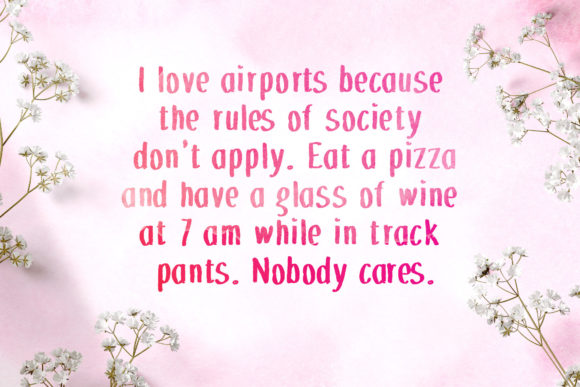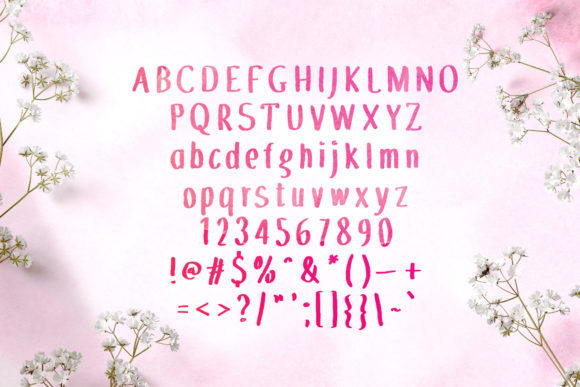
Introduction to Joyfontino Font
As a designer, have you ever found yourself staring at a blank canvas, waiting for inspiration to strike? For many of us, the perfect font can be the spark that sets our creative project ablaze. That’s where the Joyfontino Font comes in – a clean and natural handwritten font that has the power to elevate any design to new heights.
Whether you’re working on a free download for a client or a high-quality design for a commercial project, Joyfontino Font is a valuable resource that’s sure to impress. With its transparent background and organic feel, this font is perfect for designers who want to add a touch of personality to their work. And the best part? It’s a game-changer for any creative project, big or small.
So, what makes Joyfontino Font so special? In this article, we’ll dive into the world of this amazing font and explore its features, benefits, and how you can use it to take your designs to the next level.
Key Features of Joyfontino Font
- High-quality design resource perfect for creative projects, available for free download with transparent background.
- Unique, hand-drawn style with intricate details and flourishes, making it ideal for adding a touch of elegance to your designs.
- Includes a wide range of characters, including uppercase and lowercase letters, numbers, and punctuation marks, making it a versatile design resource.
- Perfect for use in various design projects, including logos, graphics, typography, and more.
Honest Review: Joyfontino Font
As a designer, I’m always on the lookout for high-quality design resources to elevate my creative projects. The Joyfontino Font caught my attention with its unique blend of elegance and playfulness, making it a great addition to my design arsenal.
Here are some things that work well with the Joyfontino Font:
- ✨ High-quality design: The font is well-crafted, with smooth lines and a cohesive aesthetic that makes it perfect for a variety of design projects.
- ✨ Versatile: Joyfontino Font is suitable for both digital and print designs, from brochures to website headers.
However, I do have some reservations:
- ⚠️ Limited character set: The font only includes a basic set of characters, which may be a limitation for designers who need to use special characters or languages.
- ⚠️ Transparent background: While the font itself is great, the transparent background can sometimes be tricky to work with, especially when combining it with other design elements.
Overall, the Joyfontino Font is a solid addition to any designer’s toolkit. While it has its limitations, its high-quality design and versatility make it a great resource for creative projects. I’d definitely recommend it to designers who are looking for a unique and elegant font for their designs.
Tips for Getting the Most Out of Joyfontino Font
To get the most out of the Joyfontino Font, use it on a transparent background and pair it with high-quality images. This will give your creative project a professional and polished look.
The Joyfontino Font is perfect for use in various creative projects, including:
- Posters and social media graphics